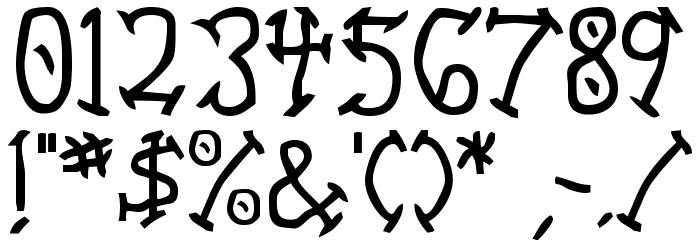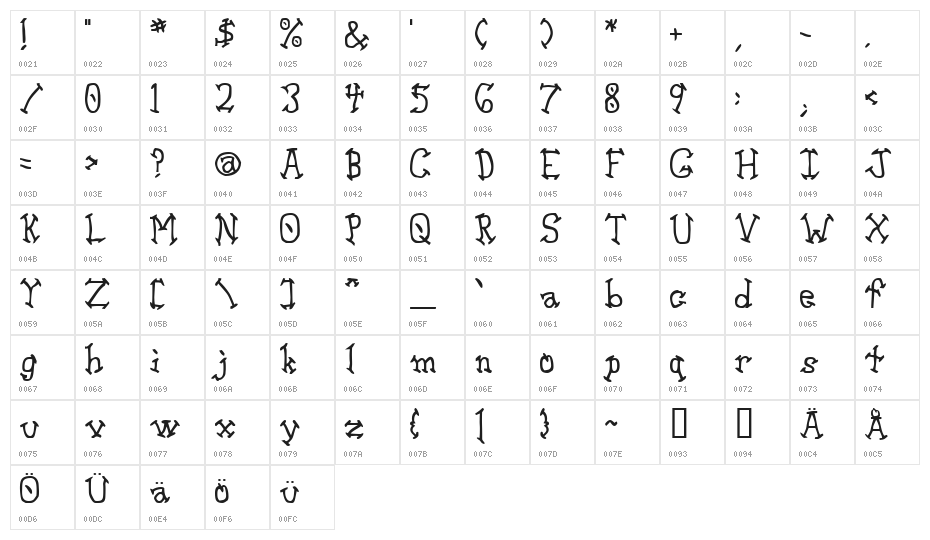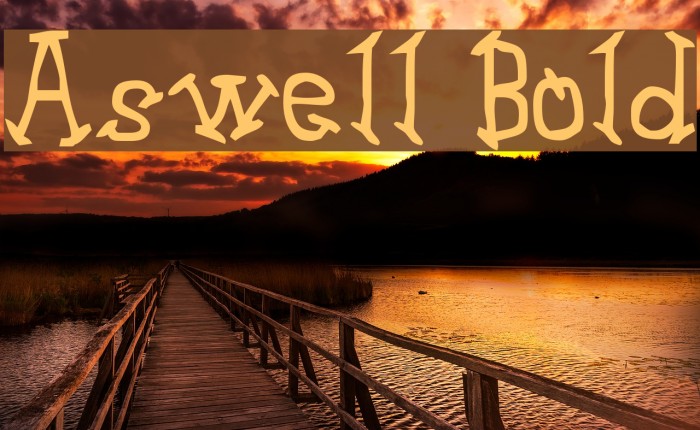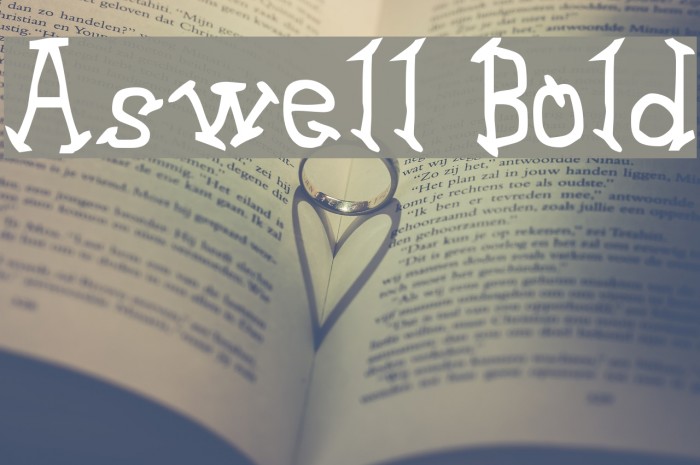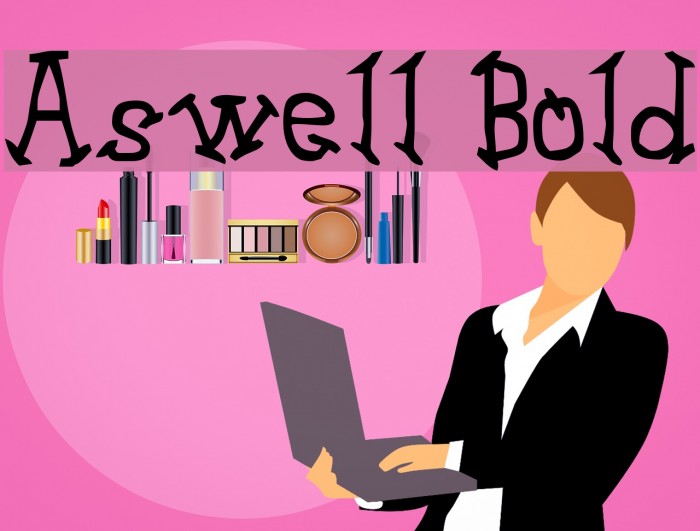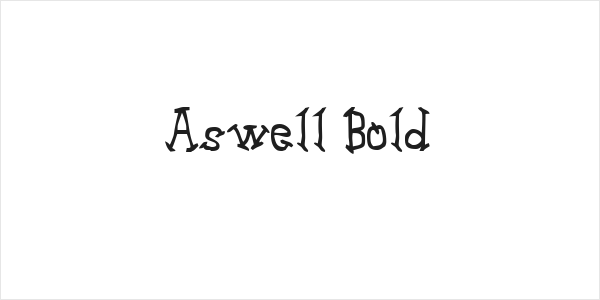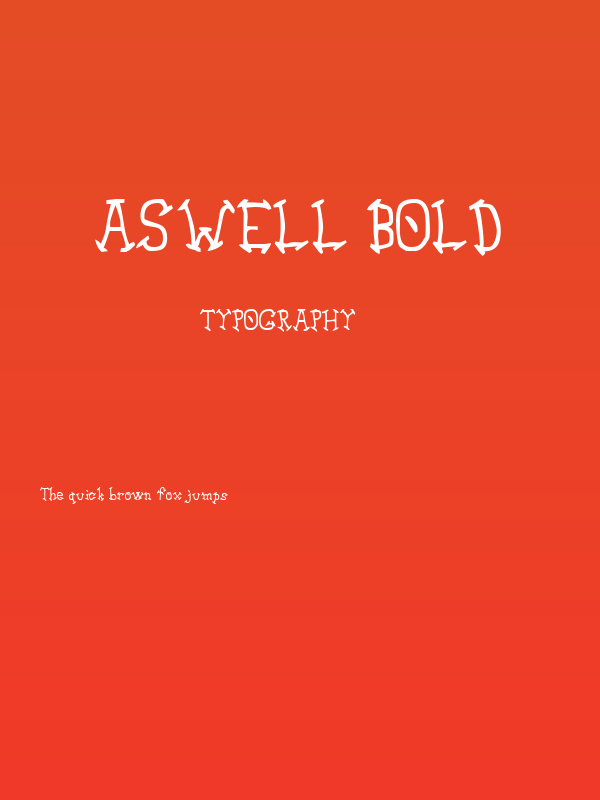
Aswell Bold Font
Aswell Bold Description
This font features a bold and playful design with a unique, hand-drawn appearance. The characters have a whimsical and slightly irregular form, giving them a lively and dynamic feel. The strokes are thick and consistent, with a slight curl at the ends, adding to its quirky charm. The uppercase and lowercase letters maintain a consistent style, while the numbers and special characters follow the same playful theme. This font is perfect for projects that require a fun and informal touch.
Overall StylePlayful, Whimsical
Proposed ProjectsIdeal for children's books, playful branding, party invitations, and creative posters.